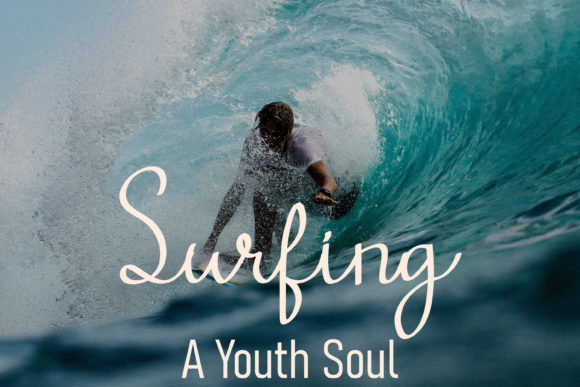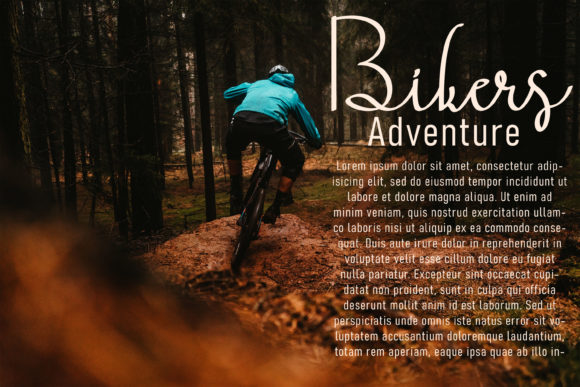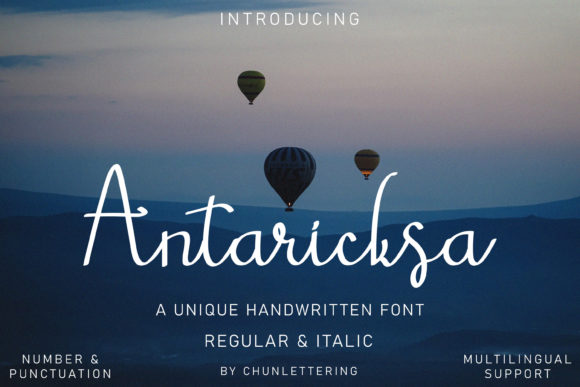
Introducing Antaricksa Font: A Unique Handwritten Style for Your Design Projects
In the world of typography, a good font can make all the difference in the success of a design project. For designers and crafters looking for a unique and eye-catching style, Antaricksa Font is an excellent choice. This handwritten font boasts distinctive glyphs characters that are sure to elevate your designs to the next level.
What Makes Antaricksa Font Special?
Antaricksa Font is a one-of-a-kind handwritten font that offers a fresh and original style for various design projects. Its unique glyphs characters set it apart from other fonts, making it perfect for designers who want to create something truly special. Whether you’re working on a logo, branding, product design, or any other project, Antaricksa Font is sure to make a lasting impression.
One of the best things about Antaricksa Font is its versatility. This font can be used for a wide range of design projects, including:
- Logo branding: Create a memorable and impactful logo for your brand with Antaricksa Font.
- Product designs: Add a touch of elegance and sophistication to your product designs with this beautiful font.
- Quotes and posters: Make your quotes and posters stand out with Antaricksa Font’s unique and eye-catching style.
- Displays and websites: Use Antaricksa Font to create stunning displays and website headers that grab attention.
- Invitation cards and greeting cards: Add a personal touch to your invitation and greeting cards with this beautiful handwritten font.
- Headlines and magazines: Use Antaricksa Font to create attention-grabbing headlines and magazine covers.
Why Choose Antaricksa Font?
There are many reasons why designers and crafters should choose Antaricksa Font for their design projects. Here are a few:
- Unique style: Antaricksa Font offers a fresh and original style that will set your designs apart from the rest.
- High-quality design: Antaricksa Font is designed with high-quality and precision, ensuring that your designs look professional and polished.
- Time-saving: With Antaricksa Font, you can save time and effort in creating your designs from scratch.
Tips for Using Antaricksa Font
To get the most out of Antaricksa Font, here are some tips to keep in mind:
- Experiment with different sizes and colors: Try out different sizes and colors to see what works best for your design project.
- Pair with other fonts: Combine Antaricksa Font with other fonts to create a unique and interesting contrast.
- Use it for headlines and titles: Antaricksa Font is perfect for headlines and titles, so use it to grab attention and make a statement.
In conclusion, Antaricksa Font is a unique and versatile handwritten font that is perfect for designers and crafters looking for a fresh and original style. With its distinctive glyphs characters and ease of use, this font is sure to elevate your design projects to the next level. Whether you’re working on a logo, branding, product design, or any other project, Antaricksa Font is an excellent choice.